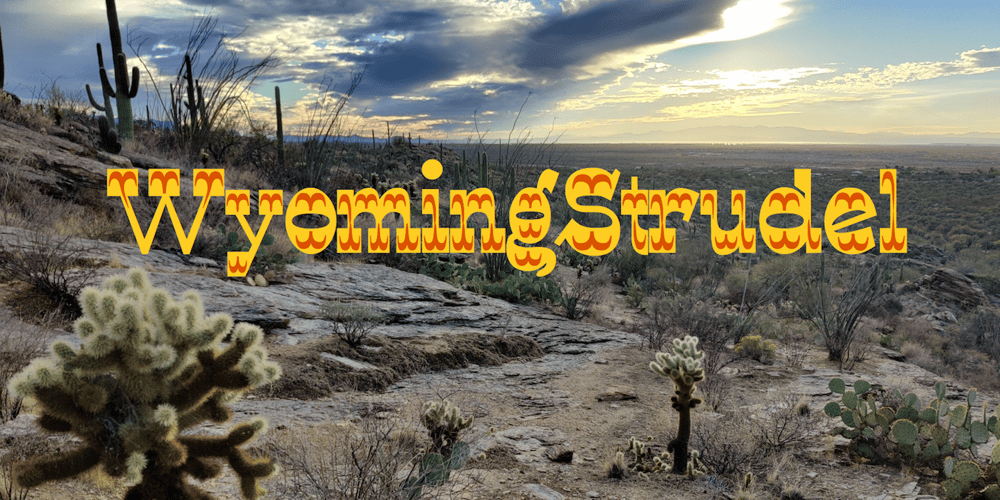
WyomingStrudel
WyomingStrudel font
WyomingStrudel Font Family was designed by Robert Schenk and published by Ingrimayne Type. WyomingStrudel contains 2 styles and family package options. WyomingStrudel takes a bold version of WyomingSpaghetti and adds an internal decoration that resembles an exaggerated split serif.The WyomingStrudelInsert style contains only the ornament. It is intended to be used in layers with WyomingStrudel, either covering up the ornament or giving it a different color than the background color.